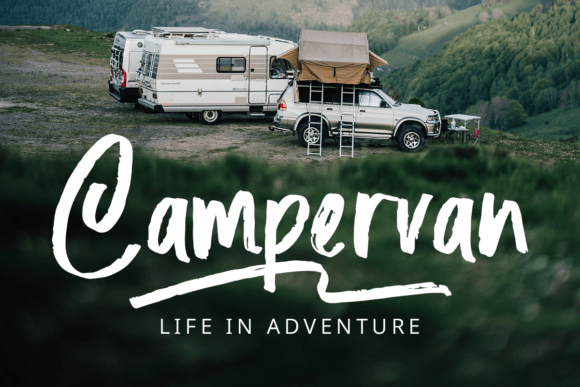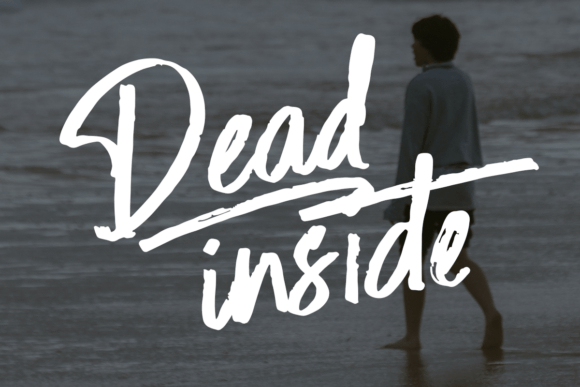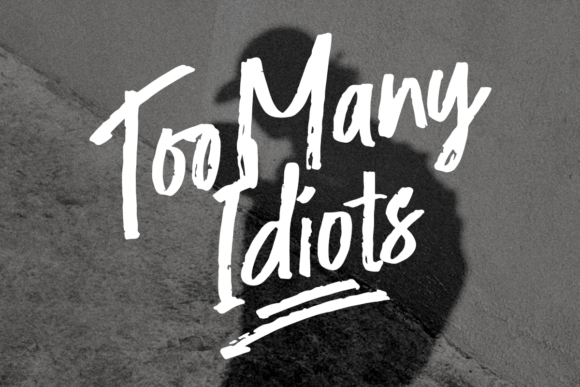
Introduction to Rustional Font
Rustional Script is a dynamic and expressive brush font designed to bring a bold and artistic touch to your projects.
With its natural brush strokes and flowing curves, this font is perfect for branding, posters, logos, packaging, and social media graphics Rustional Script captures the raw energy of handcrafted design, making it ideal for creative and modern designs that stand out.
Rustional Font offers exceptional quality and versatility, making it a valuable addition to your design toolkit. Whether you’re creating for personal projects or commercial use, Rustional Font delivers professional results.